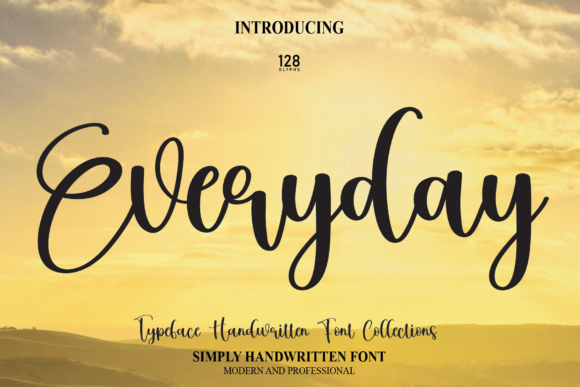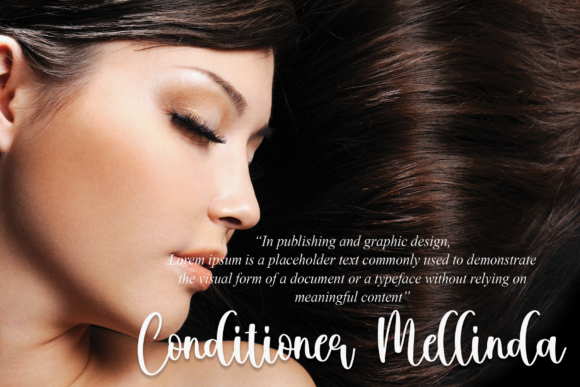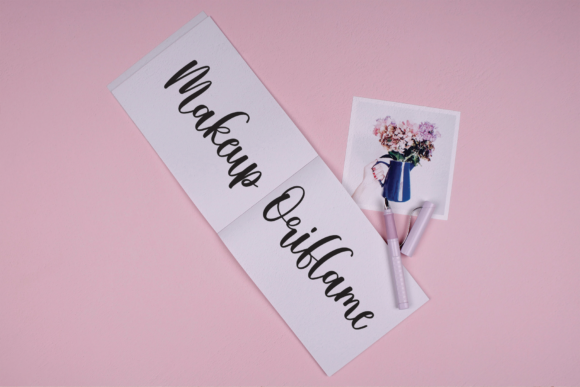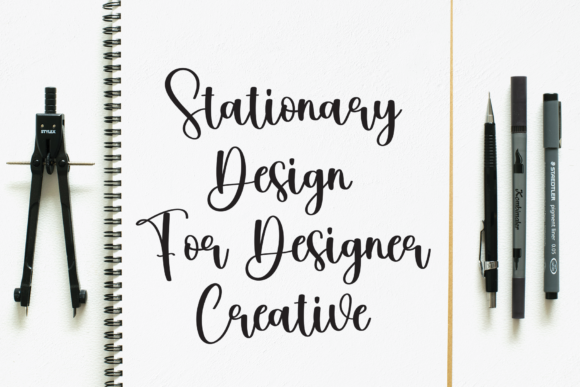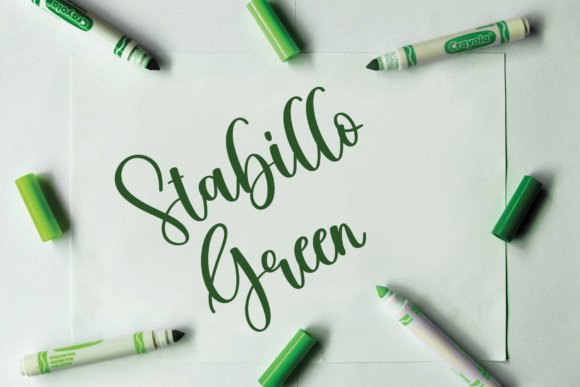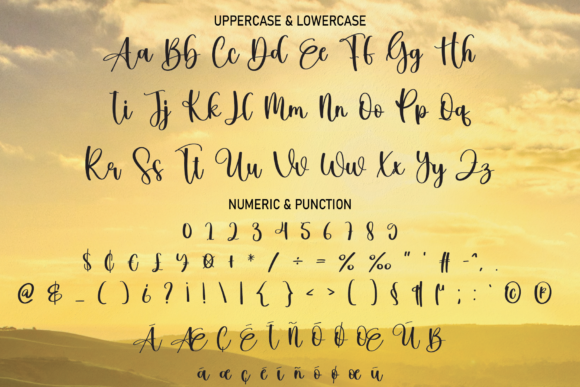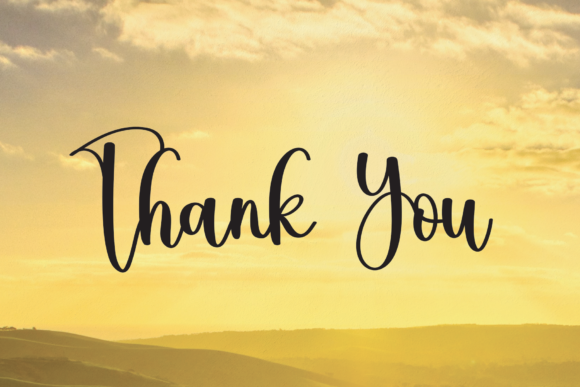
Everyday Font
“Everyday” is a delightful and slender handwritten font that captures attention with its graceful charm. This font is the ultimate choice when it comes to crafting captivating logos, building a compelling brand identity, and accentuating quotes with an irresistible touch. Its versatile nature allows it to excel in a wide range of contexts, making it a valuable asset in your design toolkit.
The font’s slim and elegant letterforms exude a sense of refinement and sophistication. Its delicate strokes and well-balanced proportions lend an air of understated beauty to any design project. Whether you’re creating a logo for a high-end brand, designing a chic business card, or crafting inspirational quotes, “Everyday” effortlessly adds a touch of class that resonates with your audience.
One of the standout features of “Everyday” is its adaptability. It seamlessly integrates into various design scenarios, ensuring that your creations look outstanding across different mediums. From digital platforms to print materials, this font maintains its allure, showcasing its remarkable versatility.
“Everyday” offers a unique opportunity to infuse your designs with a distinctive personality. Its handwritten appearance adds a human touch and an element of authenticity to your work. By using this font, you can establish a strong visual identity that resonates with your target audience and leaves a lasting impression.
Whether you’re working on a branding project, designing logos that demand attention, or seeking to enhance the impact of your quotes, “Everyday” is the go-to font. Its lovely and slim characteristics ensure that it stands out while harmonizing effortlessly with various design elements. With “Everyday” at your disposal, your design projects are bound to shine and leave a memorable mark.